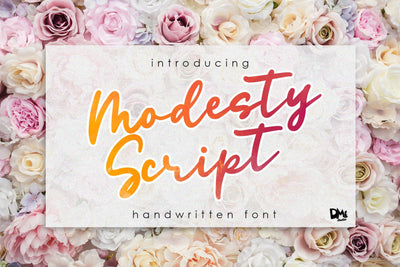
Modesty Script - Handwritten Font
Introducing, Modesty Script-Handwritten Font.
It's a warm, simple and romantic handwritten crafty font, perfect to beautify your design.